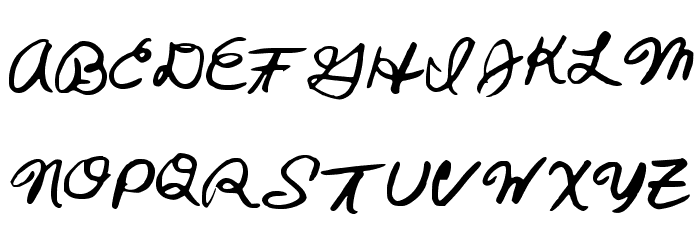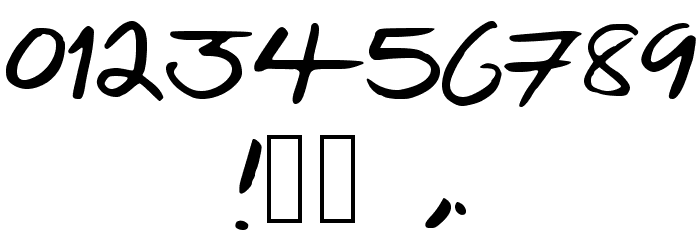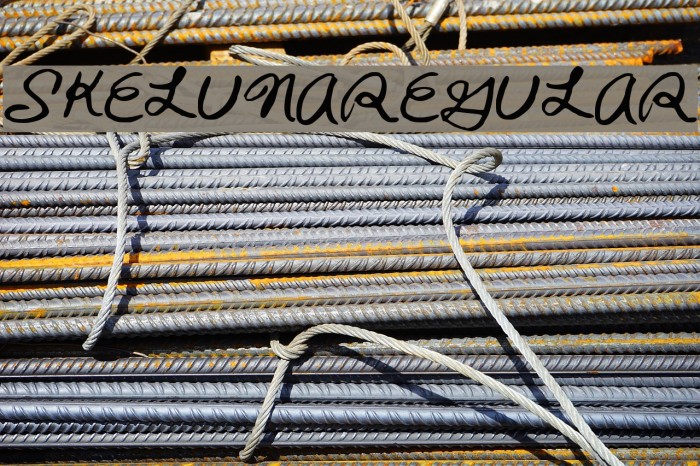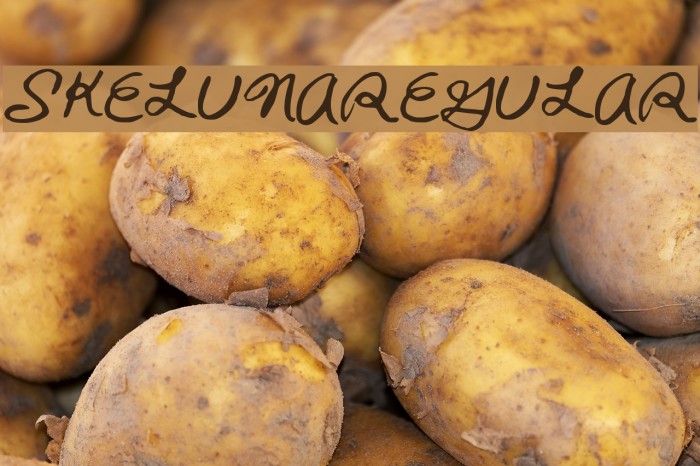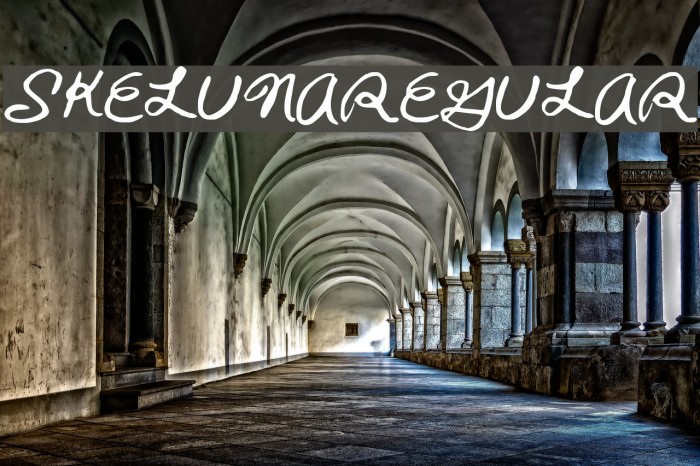
SKELUNA-Regular Font
This font exhibits a dynamic and fluid script style, characterized by its elegant and flowing letterforms. Each character is crafted with a sense of movement, featuring smooth curves and varying stroke widths that add a touch of sophistication. The uppercase letters are bold and prominent, while the lowercase letters maintain a consistent fluidity, making it suitable for creative and artistic projects. The numerals are distinct and maintain the same flowing style, ensuring readability. Special characters are designed to complement the overall aesthetic, adding versatility to the font's application.
A dynamic and fluid script font with elegant, flowing letterforms.
- Proposed Projects: Ideal for wedding invitations, greeting cards, branding projects, and artistic designs.
- Use Case: Logos, Invitations, Artistic Designs